LettError
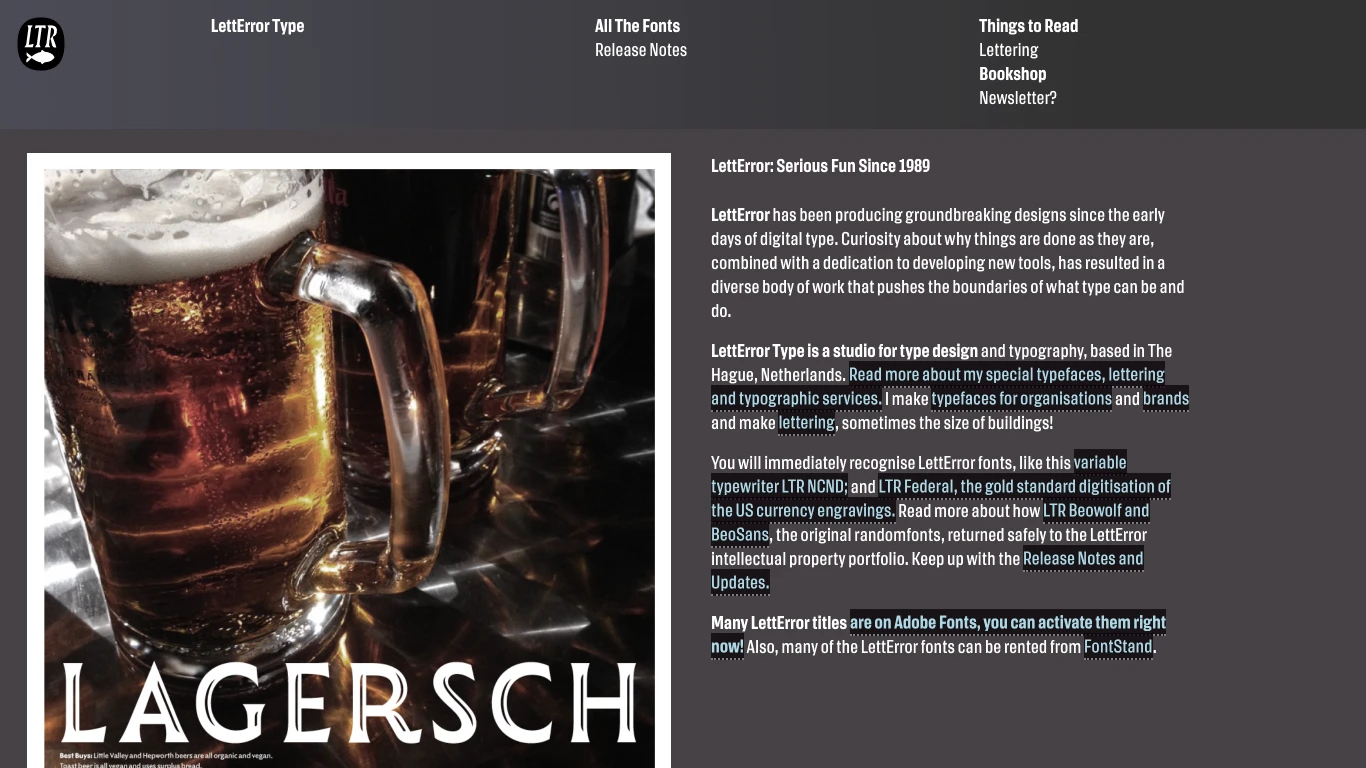
Netherlands
1989
LettError is a pioneering type foundry established in 1989 by Dutch designers Just van Rossum and Erik van Blokland. Based in The Hague, Netherlands, the studio is renowned for its experimental approach to typography, blending design with programming to push the boundaries of type design. Their groundbreaking typeface, FF Beowolf (1990), introduced the concept of "random fonts," where each printed instance of a character could vary, challenging the notion of static letterforms. FF Beowolf was acquired by the Museum of Modern Art (MoMA) in New York as part of its permanent collection, recognizing its significance in the evolution of digital typography. LettError continues to innovate with projects like LTR NCND, a variable font inspired by classic typewriter textures, and LTR Federal, a digitization of U.S. currency engraving styles. Their work is available through platforms like Adobe Fonts and Fontstand.